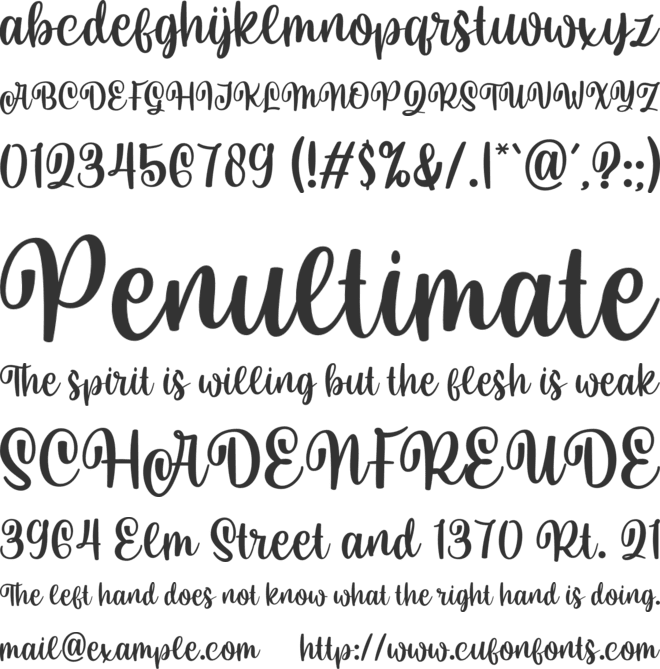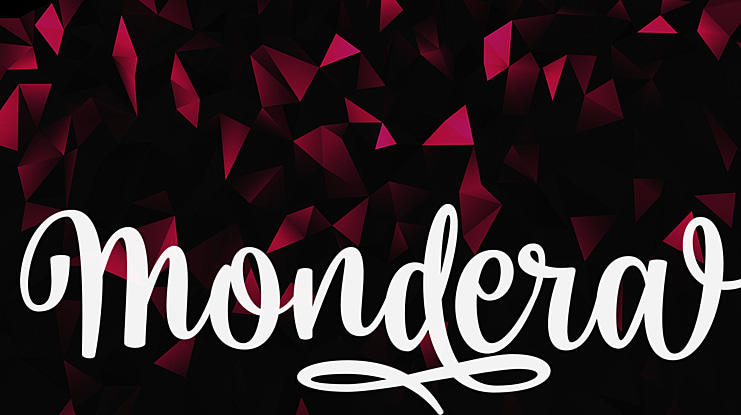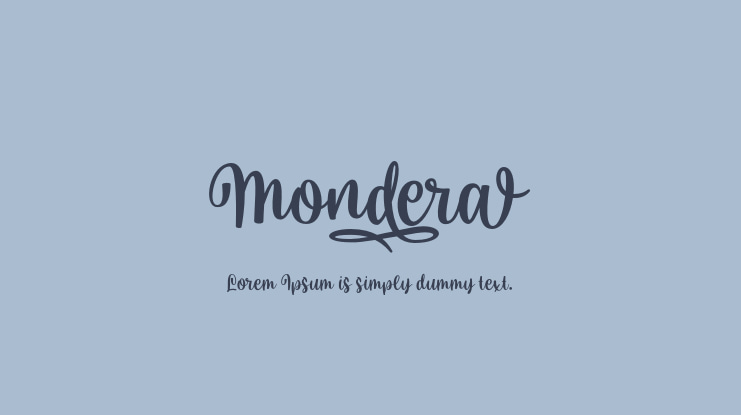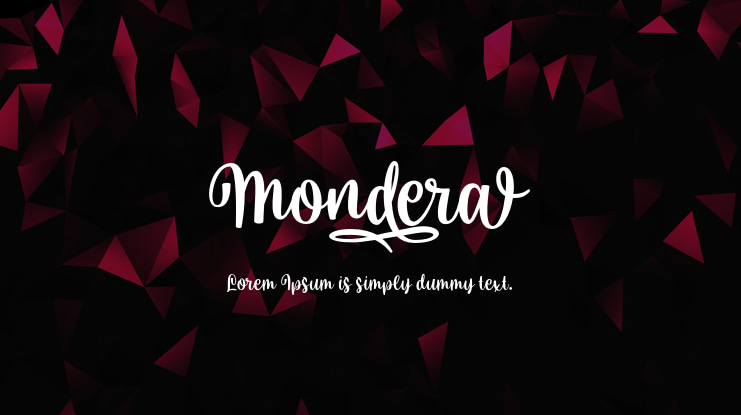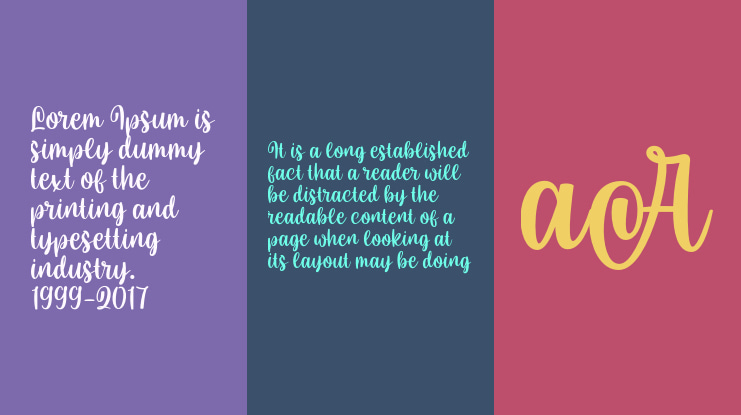
Mondera Font
Mondera is a beautiful and romantic handwritten font. It looks stunning on wedding invitations, thank you cards, quotes, greeting cards, logos, business cards and every other design which needs a handwritten touch.